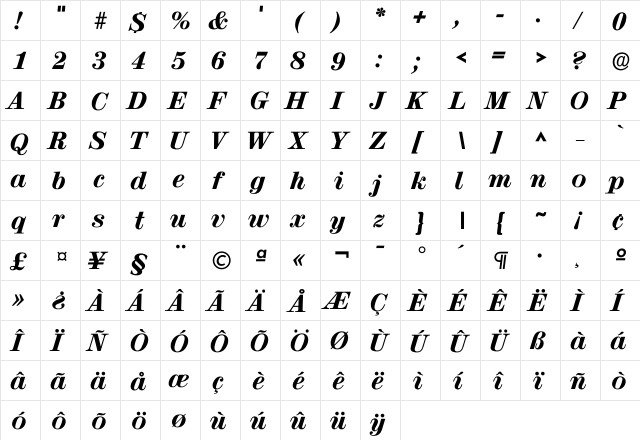
Ivalencia ExtraBold
Design Context for Ivalencia Typeface
Ivalencia is a composed and adaptable typeface that performs quietly and consistently across a wide range of design contexts. Its bold stroke weight gives it real presence on the page.
Pro Tip: Use Ivalencia in both headline and body roles to test its range before committing to a single application.